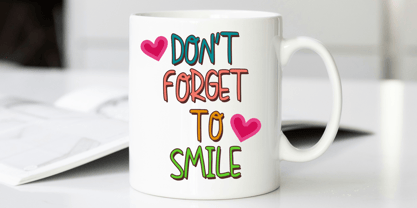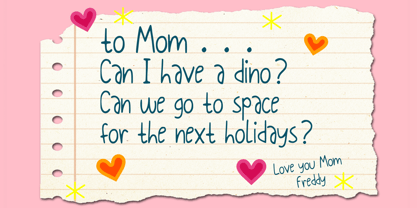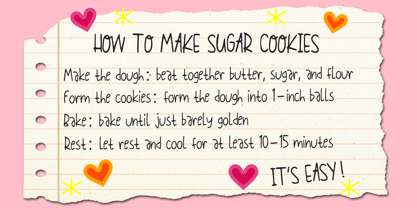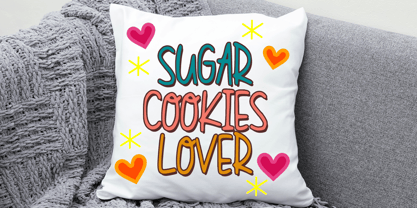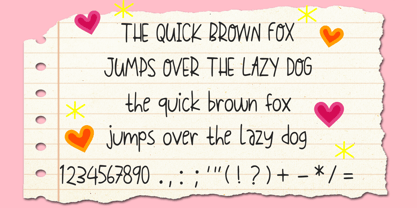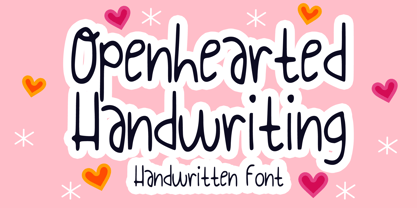
Openhearted Handwriting
The Openhearted Handwriting Font Family was designed by Gabriel Valentinus and published by Mvmet. Openhearted Handwriting contains 1 styles. More about this family
Openhearted Handwriting is a delightful and playful handwritten font that brings a whimsical charm to your creative projects. Perfect for a variety of applications, this font enhances diverse design ideas including stickers, t-shirt graphics, merchandise branding, captivating logo designs, magazine and book covers, comics, cartoon illustrations, and everyday typing. Its unique style adds a cool and inviting personality to any design, making it an excellent choice for those looking to inject a sense of fun and creativity into their work.
Designers: Gabriel Valentinus
Foundry: Mvmet